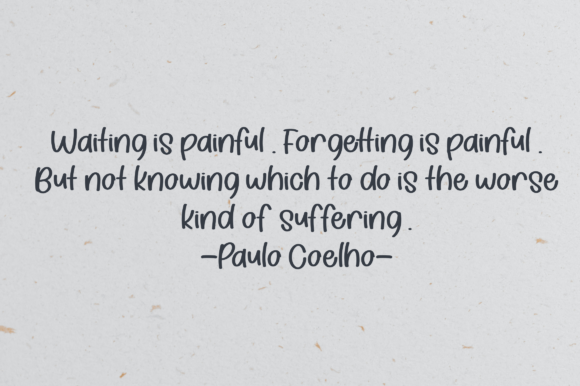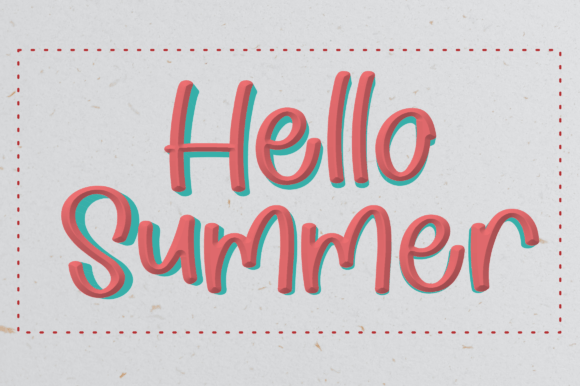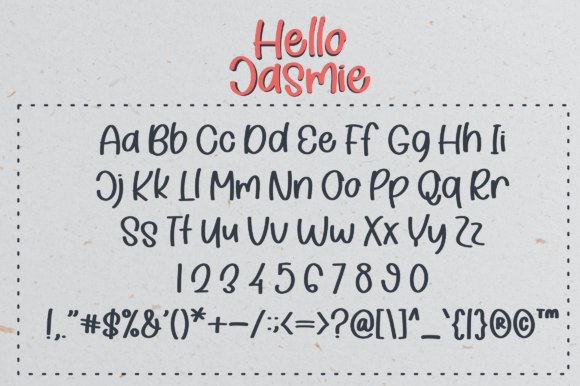
Introduction to Hello Jasmie Font
As designers, we’ve all been there – stuck on a creative project, desperately searching for the perfect font to bring our vision to life. The blank page stares back at us, taunting us with its emptiness. But then, it happens – we stumble upon a font that makes our hearts skip a beat. For many of us, that moment of serendipity came when we discovered the Hello Jasmie Font.
This fun and fresh handwritten font is more than just a pretty face. Its modern yet whimsical style has the power to transport your designs into a playful world, making it an invaluable resource for any designer looking to add a touch of personality to their work.
Whether you’re working on a personal project or a high-profile design, the Hello Jasmie Font is sure to be a valuable addition to your design arsenal. With its high-quality design and transparent background, it’s the perfect tool for creatives who demand the best.
Key Features of Hello Jasmie Font
- High-quality, professional font design ideal for creative projects
- Unique, elegant design that adds a touch of sophistication to any creative project
Honest Review: Hello Jasmie Font
As a designer, I’m always on the lookout for high-quality design resources to enhance my creative projects. Recently, I stumbled upon the Hello Jasmie Font, and I’m excited to share my honest review with you.
- High Quality: The font’s crisp and clean design makes it perfect for a variety of projects, from logos to typography-heavy designs.
- Limited Character Set: The Hello Jasmie Font has a relatively small character set, which may limit its use in more complex design projects.
- No Customization Options: Unlike some other fonts, the Hello Jasmie Font doesn’t offer any customization options, which may be a drawback for designers who like to experiment with their designs.
Overall, I’m impressed with the Hello Jasmie Font’s simplicity and versatility. While it may have some limitations, its free download and high-quality design make it a valuable addition to any designer’s toolkit. I’d definitely recommend it for any creative project that requires a clean and elegant font.
Hello Jasmie Font
For the most out of the Hello Jasmie Font, use it for titles, headings, and emphasis in your design project. Common use cases include branding, marketing materials, and social media graphics.
Alternatives to Hello Jasmie Font
Compared to Hello Jasmie Font, Lato is more versatile and offers a wider range of font styles. While Hello Jasmie Font is more playful and cursive, Lato is more straightforward and modern.